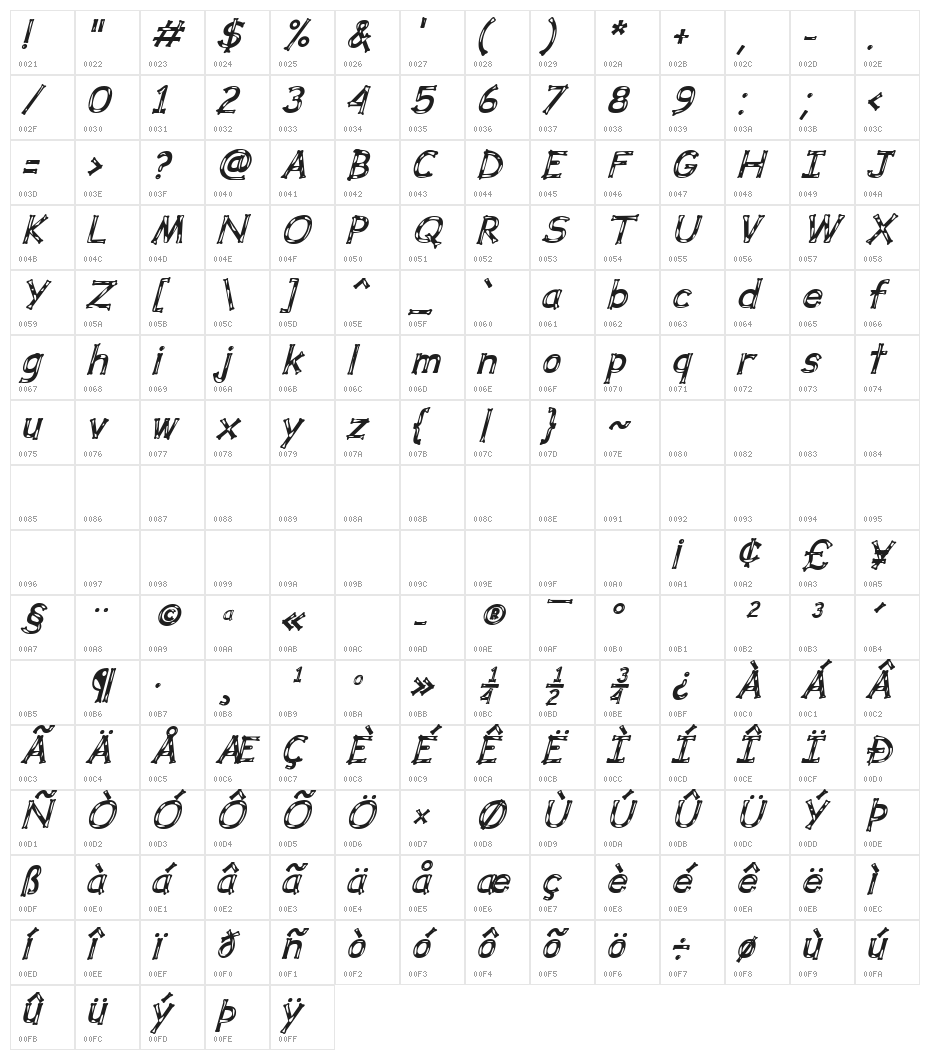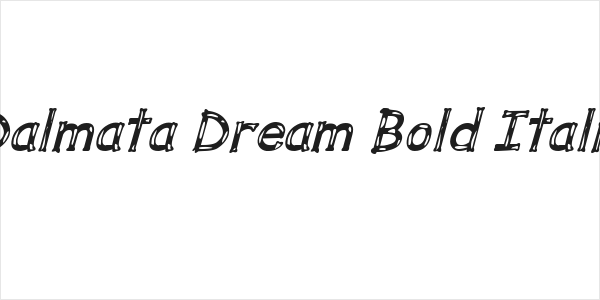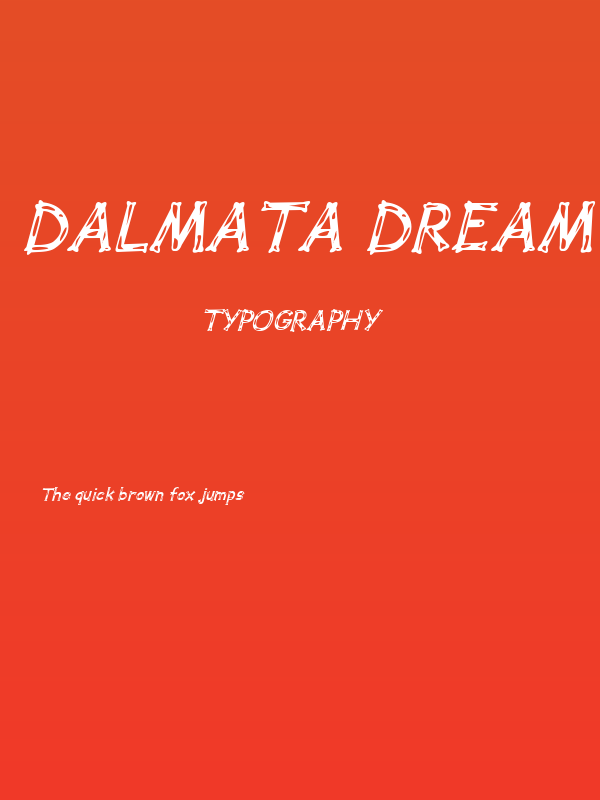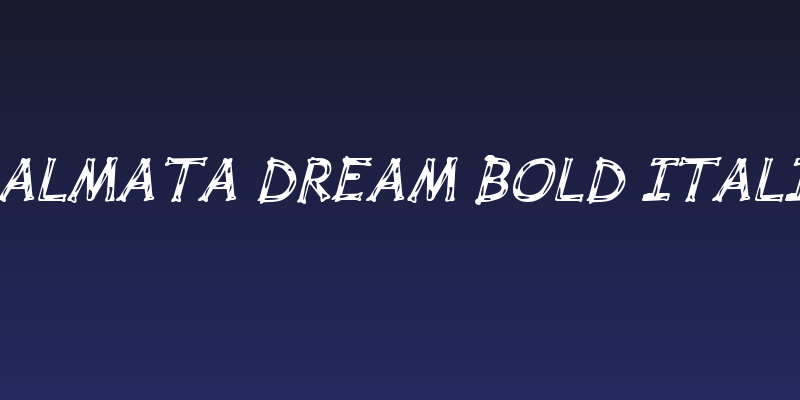
Dalmata Dream Bold Italic Font
Dalmata Dream Bold Italic Description
This font features a bold and italicized style with a playful and dynamic appearance. The characters are designed with a unique, artistic flair, incorporating irregular strokes and a slightly slanted orientation. The uppercase and lowercase letters maintain a consistent style, with exaggerated serifs and a hand-drawn quality that adds to its charm. The numerals and special characters follow the same design principles, ensuring a cohesive look across all elements. The font's distinct personality makes it suitable for creative and expressive projects.
| Proposed Projects | Ideal for creative projects such as posters, album covers, children's books, and branding materials that require a fun and dynamic touch. |